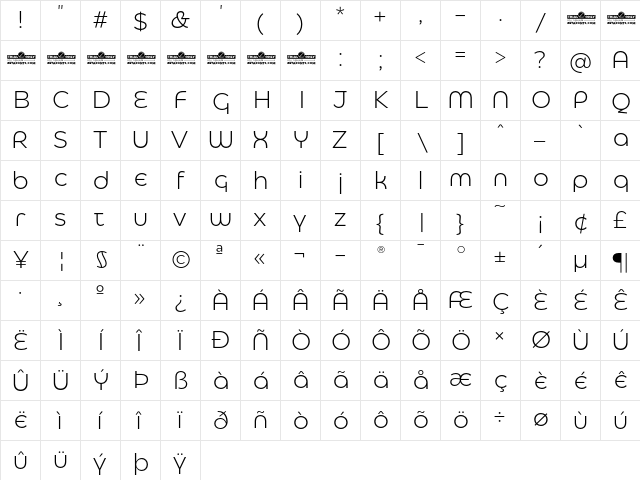
Eastman Alternate Trial Light Font Preview
Eastman Alternate Trial Light
Eastman Alternate Trial Light Font Details
| Foundry | Zetafonts |
| Designer | Francesco Canovaro |
Design Context for Eastman Alternate Trial Typeface
Eastman Alternate Trial is a composed and adaptable typeface that performs quietly and consistently across a wide range of design contexts. Its slender proportions lend an understated elegance to any composition.